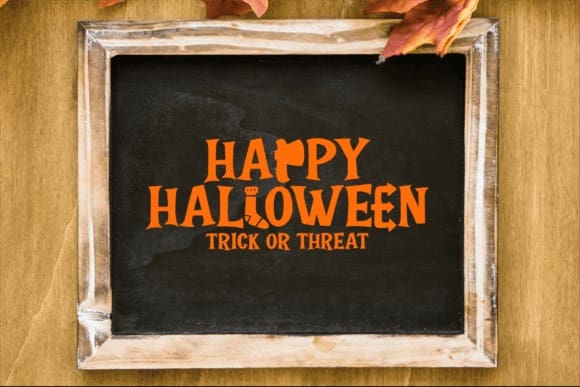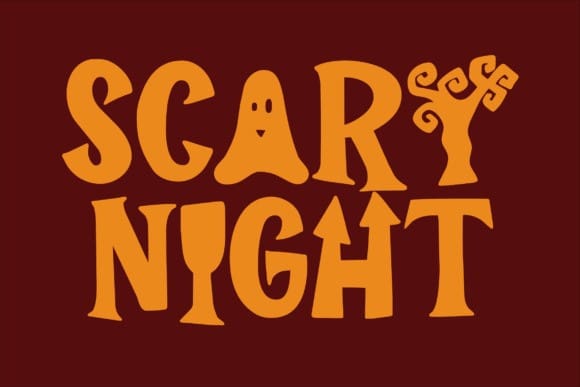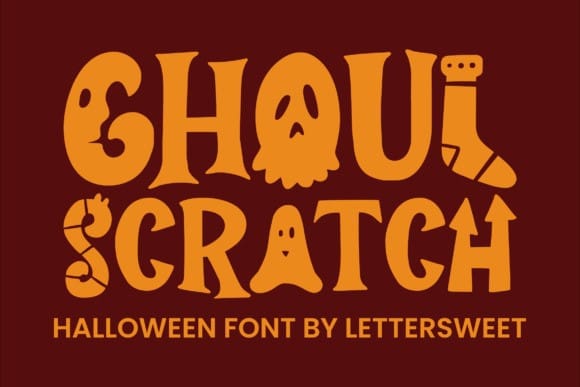
Ghoul Scratch Font
Ghoul Scratch Font is a bold, decorative font designed for Halloween-themed projects. The unique letterforms incorporate playful, spooky elements such as ghost faces and other Halloween motifs. Its vibrant orange color contrasts with a dark background, making it ideal for creating eye-catching designs like posters, invitations, and themed graphics.